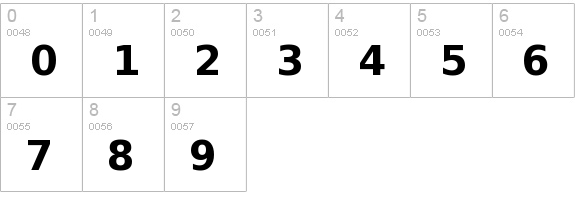
Bitstream Vera Sans Bold is a strong, high-contrast variant in the Bitstream typeface family \xE2\x80\x94 well suited to headlines, attention-grabbing titles, and strong calls-to-action.
Bitstream Vera Sans Bold is a modern and versatile typeface that exudes confidence and professionalism. With its clean lines and bold weight, this font makes a strong statement while remaining highly readable. Ideal for headlines, titles, and emphasis, Bitstream Vera Sans Bold commands attention and adds a touch of sophistication to any design project. What sets Bitstream Vera Sans Bold apart is that it is not only stylish and functional but also completely free to use. Whether you're working on a personal project or a commercial endeavor, you can download this font at no cost from FontsMarket.com. Take advantage of this amazing opportunity to enhance your designs with the timeless elegance of Bitstream Vera Sans Bold.